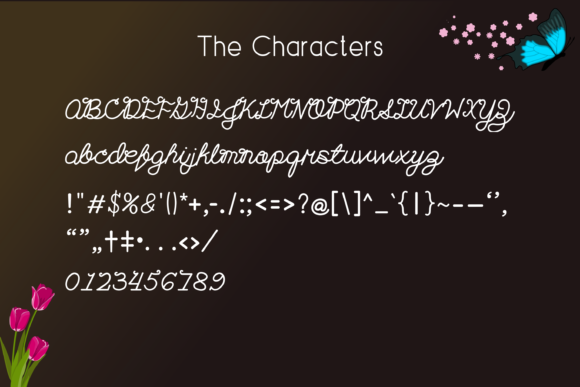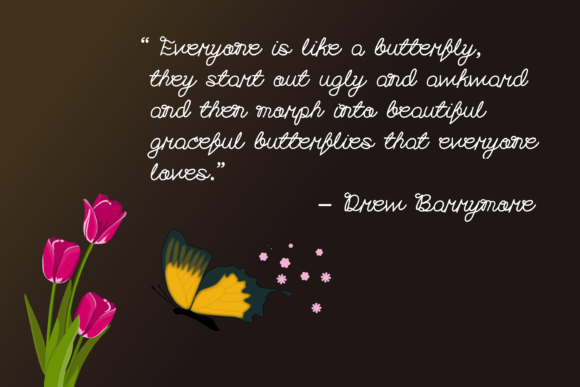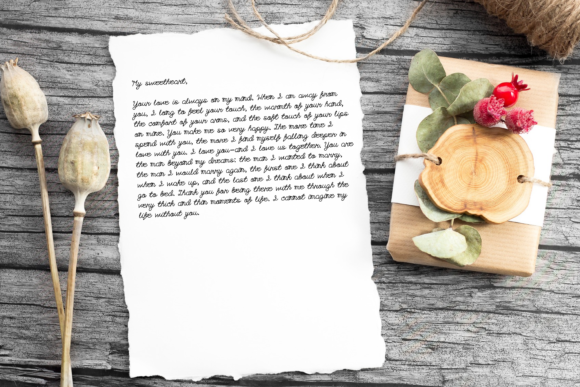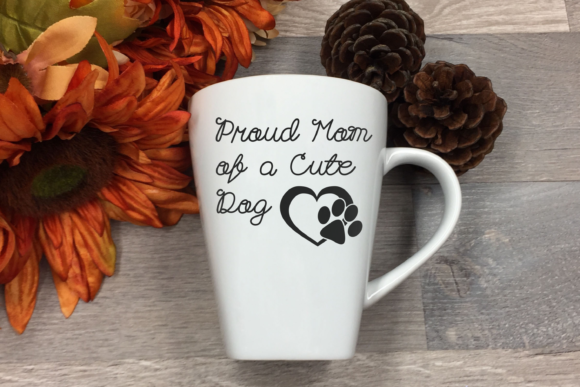
HomeScript FontsMarifessa Font Script Fonts Marifessa Font FacebookXPinterestWhatsApp Marifessa Font Poster 2 Marifessa Font Poster 3 Marifessa Font Poster 4 Marifessa Font Poster 5 About Marifessa Font Marifessa is a sweet and charming script that will turn any design project into a true piece of art! DOWNLOAD ON CREATIVE FABRICAThis font is sold and delivered by Creative Fabrica. Font Canyon may earn a commission if you buy through this link. People also explored Bettani Antique Font Angellita Font Ebony Honey Font Andien Nidya Duo Font Boardgamers Font Flowkart Font Blueberry Font Greyalika Font Mendikari Font 290 0 TagsMarifessa Font Previous articleFallefi FontNext articleBacar Font LEAVE A REPLY Cancel reply Comment: Please enter your comment! Name:* Please enter your name here Email:* You have entered an incorrect email address! Please enter your email address here Website: Save my name, email, and website in this browser for the next time I comment. Personal Use Free Chandella Personal Use Free Read more about this font Unlock Endless Creativity with the FREE September Clipart Huge Bundle (Valued at $700!) Personal Use Free Read more about this font Mike Ferrari 16017 Personal Use Free Read more about this font Pridaem Cooper Personal Use Free Read more about this font BLOG Elegant Wedding Invitation Fonts – Handwritten & Script Fonts Elegant Wedding Invitation Fonts Your wedding day is one of the most important moments of your life, and every detail matters—including your invitation design. Our... Free vs Paid Fonts: Why Investing in Premium Fonts Is Worth It How to Install and Use Fonts on Windows, macOS, and Web Projects Exploring Font Trends